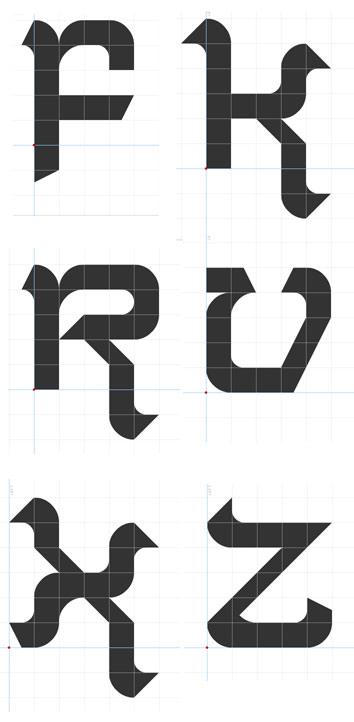
Celtic style
by Christian Munk (CMunk)
Old celtic style font. Now with some diacritics and variants. Most of the vowels can have an acute over them, and many of the consonants can have dots. The dots make them be pronounced as if they were followed by an H, e.g. Th, Sh. Ë is a variant of R, Ì is a variant of S and Î is a variant of S with a dot above. Ï is the Irish symbol for "agus" or "and".
but may i suggest some cahnges on glyphs?i don't feel like cloning it, cause that would disrespect you as the OWNER of the idea. naturally i hate myself for that but if i see such an awesome "start" for a font i just can't break myself!
next post includes suggestions...
i cloned, demolished (:)) and deleted again!
everything i got is this screenshot...
Thank you for the suggestions. I've done some of them with some modifications. I liked my own f though.